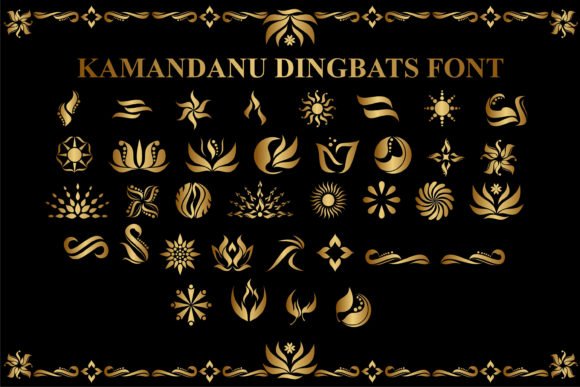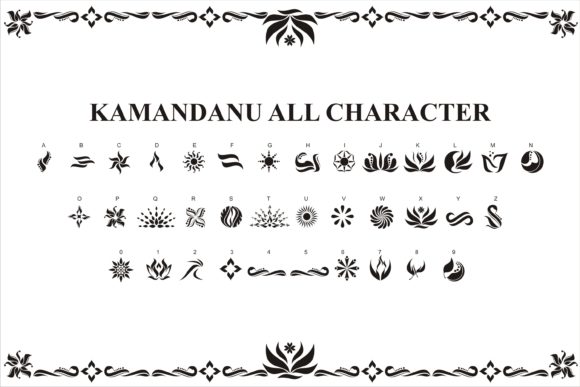
The Secret to Elevating Your Creations: Kamandanu Dingbats Font
Have you ever stared at a blank page, desperate for that one thing that would bring your design to life? Maybe it was a perfect icon, a delicate flourish, or a touch of whimsy. For designers, those moments of creative frustration are a thing of the past with the Kamandanu Dingbats Font.
This cool, creative, and useful dingbats font is a treasure trove of visual elements waiting to be unleashed. With its versatility and unique style, the Kamandanu Dingbats Font has the potential to elevate any creation, whether it’s a logo, a poster, or a website. Whether you’re a seasoned pro or just starting out, this font is an incredible asset to your library.
Kamandanu Dingbats Font Key Features
- Font Family: Dingbats, a collection of symbols and icons used to add visual interest to text
- Unique Characteristics: Features a unique, hand-drawn style with a mix of geometric and organic shapes, adding a touch of whimsy and personality to designs
Kamandanu Dingbats Font Review
I recently had the chance to work with the Kamandanu Dingbats font, and I must say, it’s a unique and interesting choice for designers.
- The font has a wide range of dingbat symbols, making it perfect for designers who need to add creative and visually appealing elements to their projects.
- The font is well-designed and easy to read, even at smaller font sizes.
- The Kamandanu Dingbats font is a great choice for designers who want to add a touch of whimsy and personality to their work.
- The font may not be suitable for body text, as it can be quite distracting and difficult to read in large quantities.
- The font is not as versatile as some other dingbat fonts on the market, which may limit its use in certain design projects.
Overall, I would say that the Kamandanu Dingbats font is a fun and creative addition to any designer’s toolkit. While it may have some limitations, it’s a great choice for designers who want to add a unique touch to their work.
Getting the Most Out of the Kamandanu Dingbats Font
To get the most out of the Kamandanu Dingbats font, try using it in conjunction with bold or italic text to create visual interest. You can also experiment with different font sizes to create a sense of hierarchy in your design.
The Kamandanu Dingbats font is commonly used in graphic design, advertising, and branding. It is particularly effective in creating eye-catching headlines and titles.